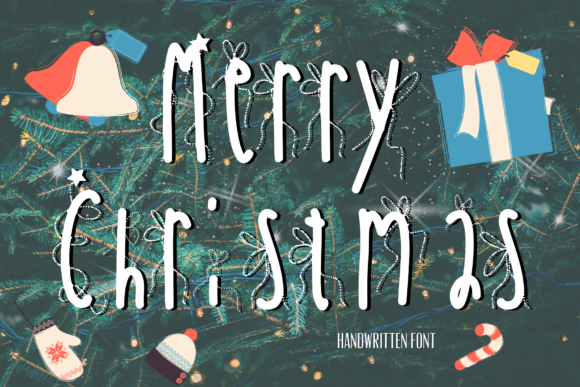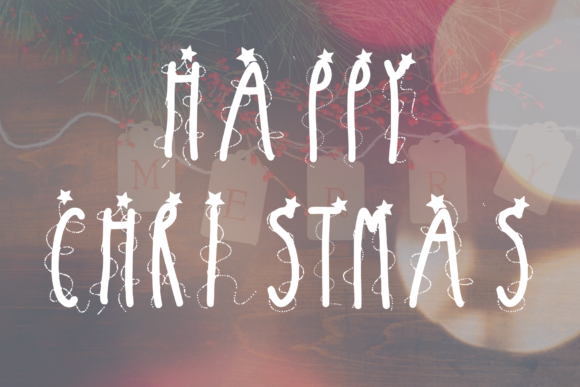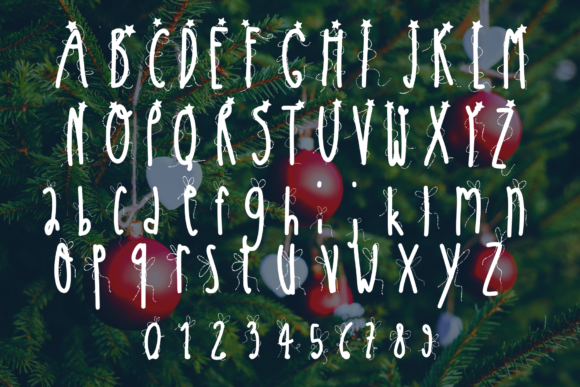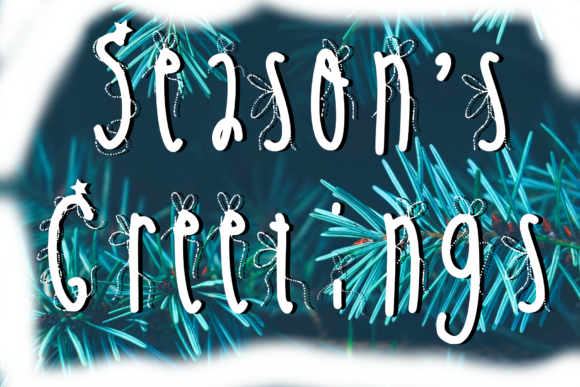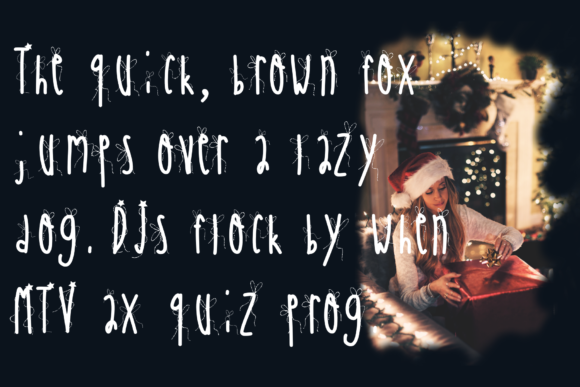
Merry Christmas Font
About Merry Christmas Font
Merry Christmas is a cute and quirky handwritten font. Add this beautiful font to each of your creative ideas and notice how it makes them stand out!